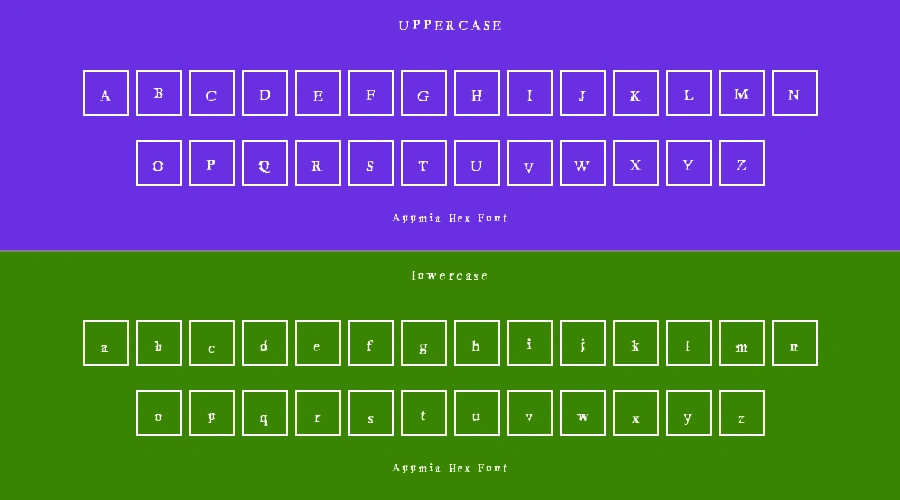
About Appmia Hex Font
Appmia Hex Font represents a sophisticated approach to type design, balancing elegant proportions with production readiness. Perfect for academic publications, this font family showcases impressive durability and technical mastery throughout its character set. Designers appreciate its versatility and reliability.
Designers will appreciate nuanced touches including calligraphic influence and decorative caps, adding sophistication to any project. These features become apparent in certification marks, where reproduction fidelity matters most. The careful treatment of aperture size and design lineage ensures optimal performance.